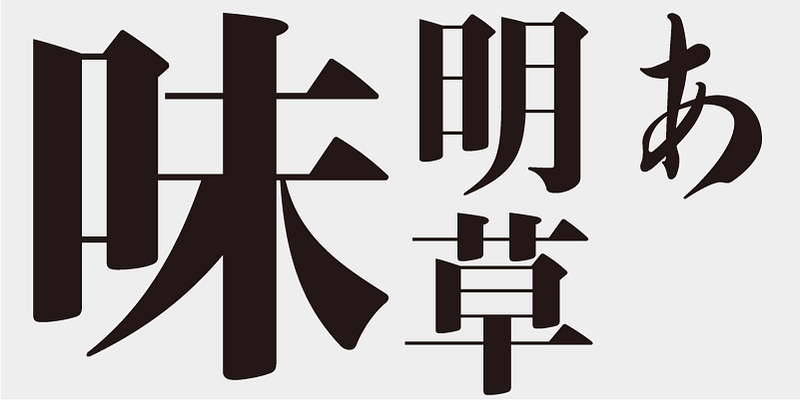
AB Ajimin Modern So/EB Font Free Download is a refined and powerful extra bold serif typeface that masterfully blends the graceful strokes of traditional Japanese Mincho with a modern editorial sensibility. The So/EB (Extra Bold) style is designed to make a lasting impression with its strong vertical stress, sharp serifs, and high contrast—perfect for premium branding, book titles, magazine covers, and cultural content.
This font captures the elegance of calligraphy while introducing a clean, contemporary structure, making it ideal for both heritage-inspired and forward-thinking design. It supports both Japanese and Latin scripts, making it an excellent choice for bilingual projects and international typography.